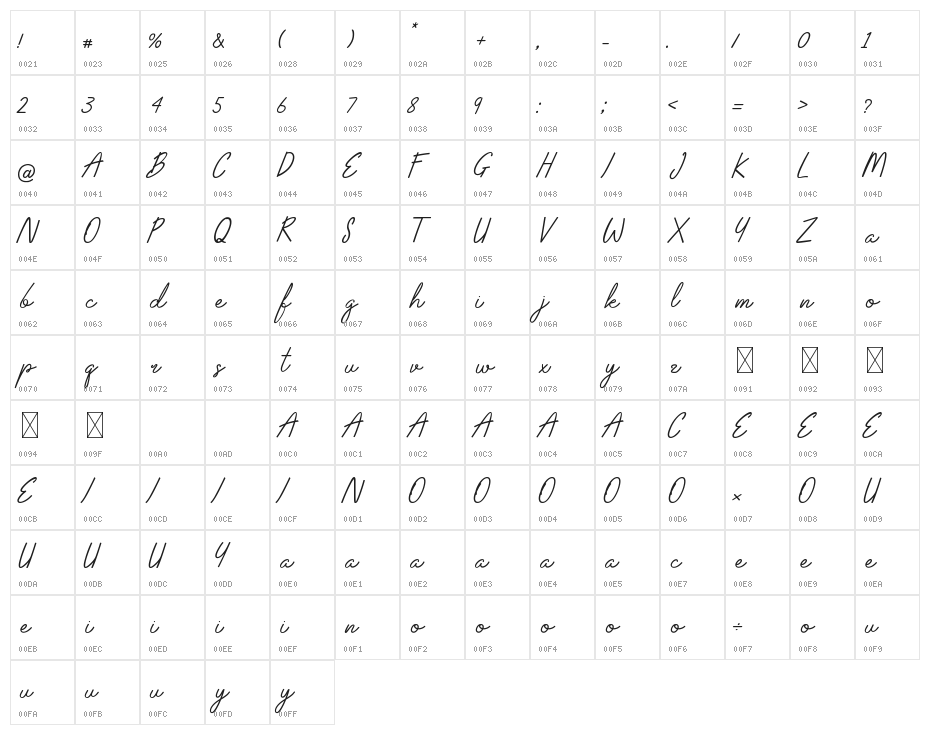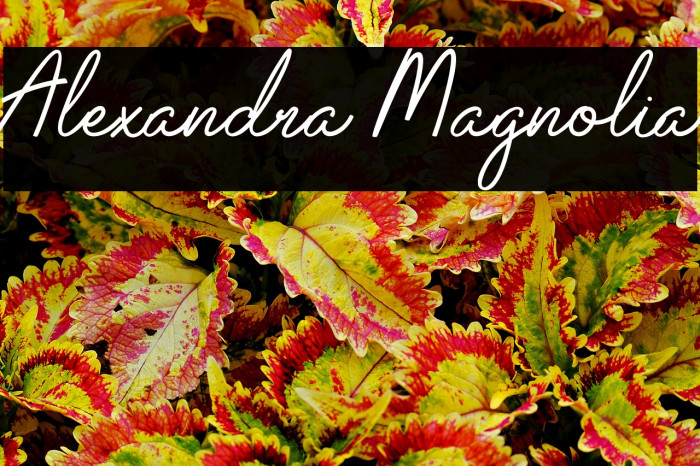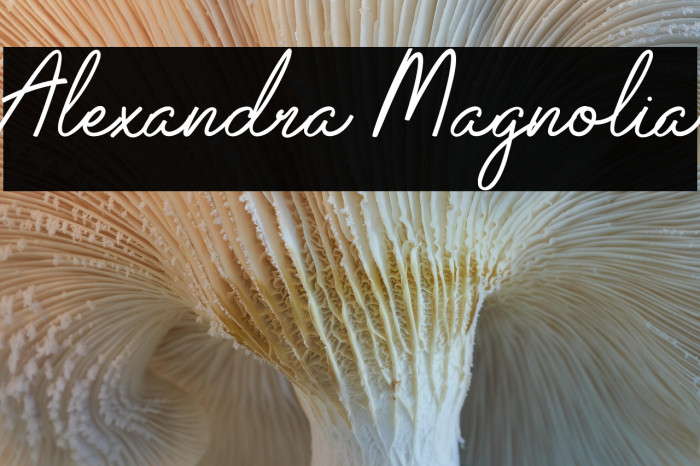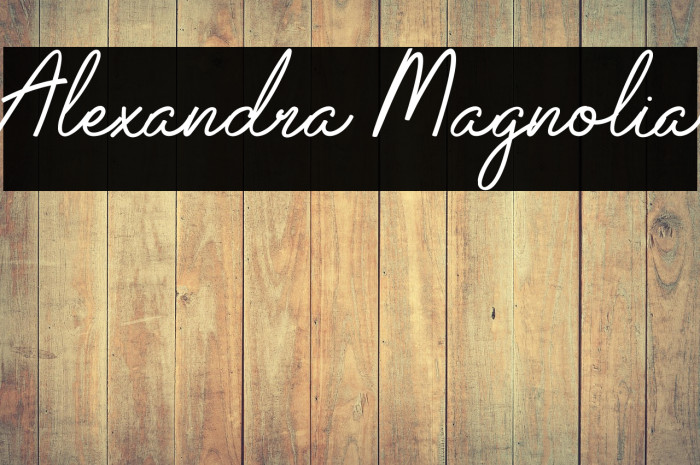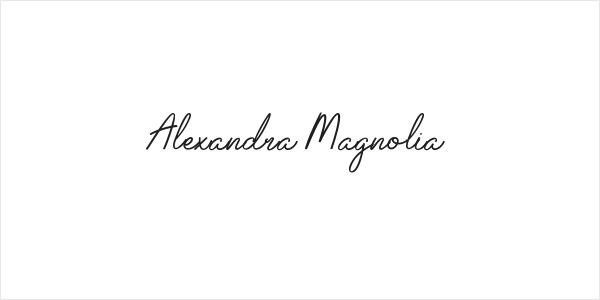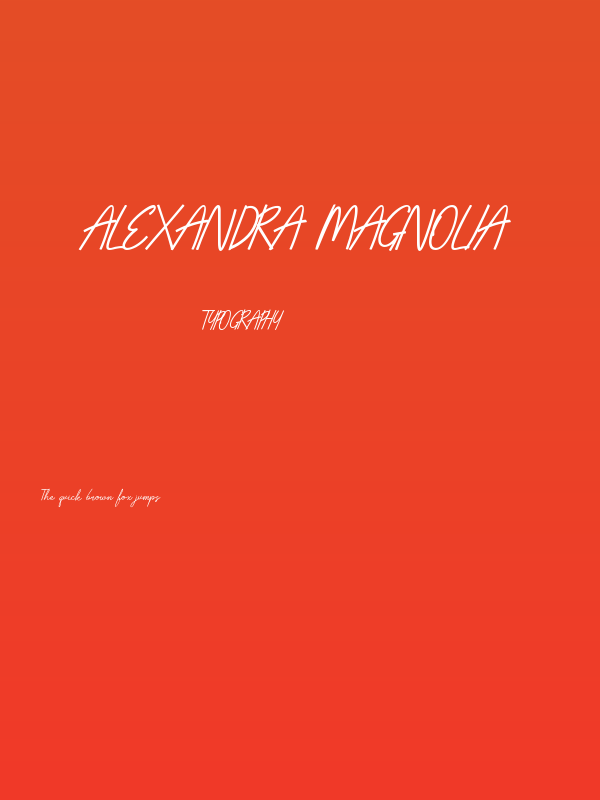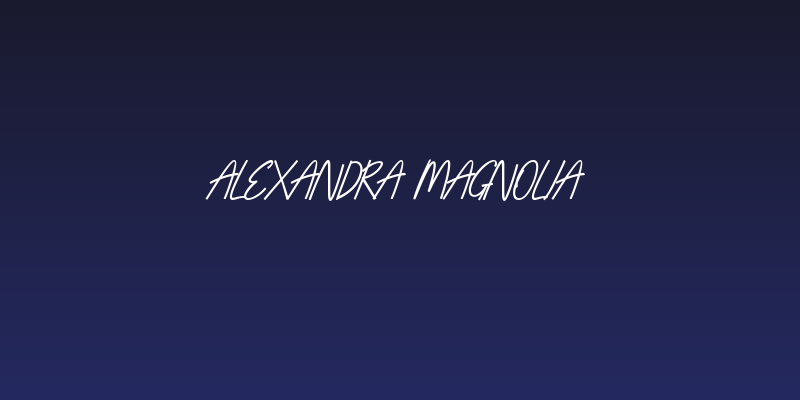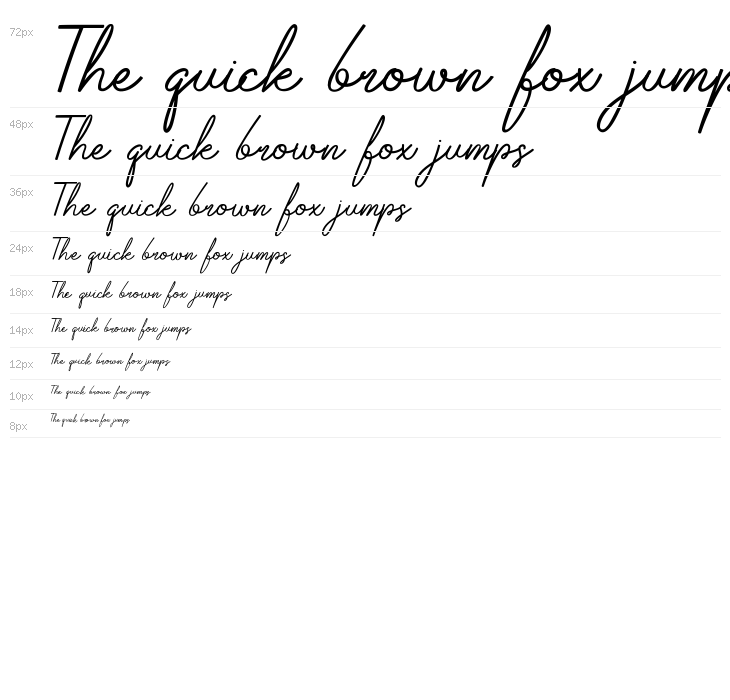
Alexandra Magnolia Font
Alexandra Magnolia Description
This font features a flowing, cursive style that mimics elegant handwriting. The uppercase letters are bold and slightly slanted, giving them a dynamic and lively appearance. The lowercase letters maintain a consistent flow with smooth curves and connected strokes, enhancing the handwritten feel. Numbers and special characters are crafted with the same fluidity, ensuring a cohesive look across all text. The overall design is both sophisticated and approachable, making it suitable for a variety of creative applications.
| Overall Style | Elegant, Handwritten |
| Proposed Projects | Ideal for wedding invitations, greeting cards, personal branding, and decorative signage. |